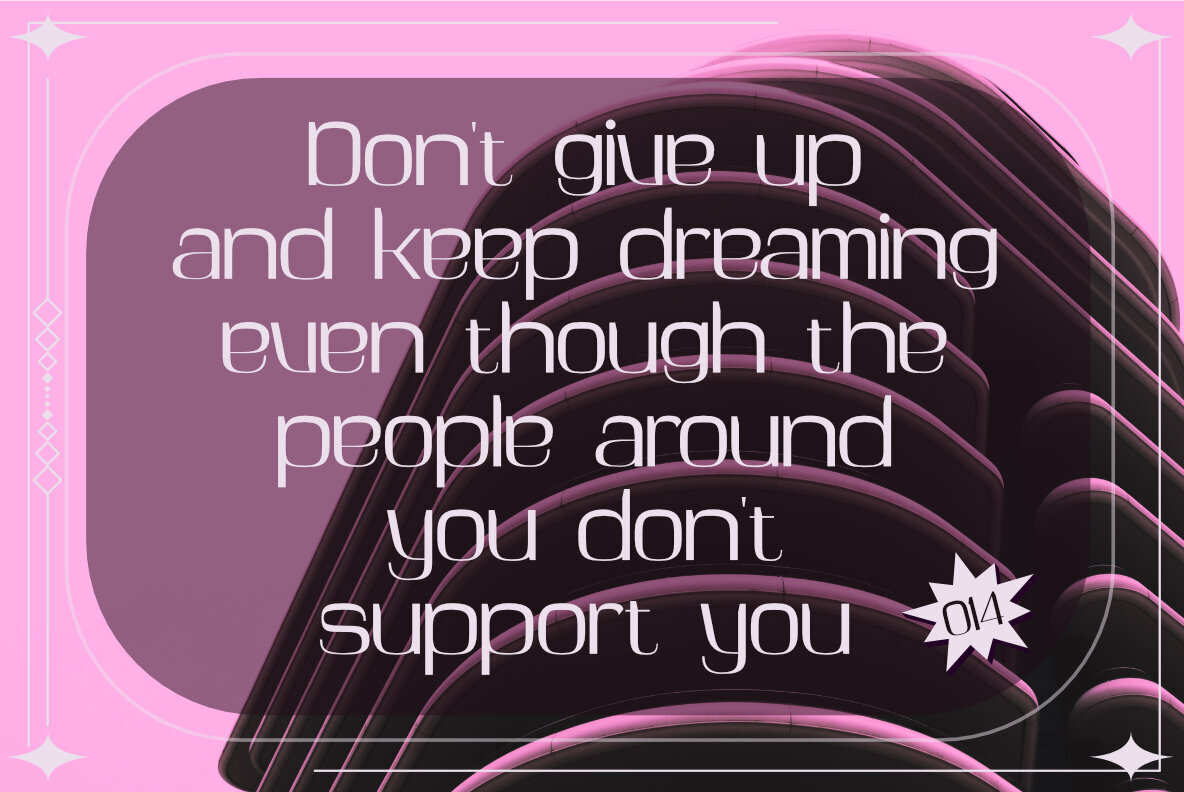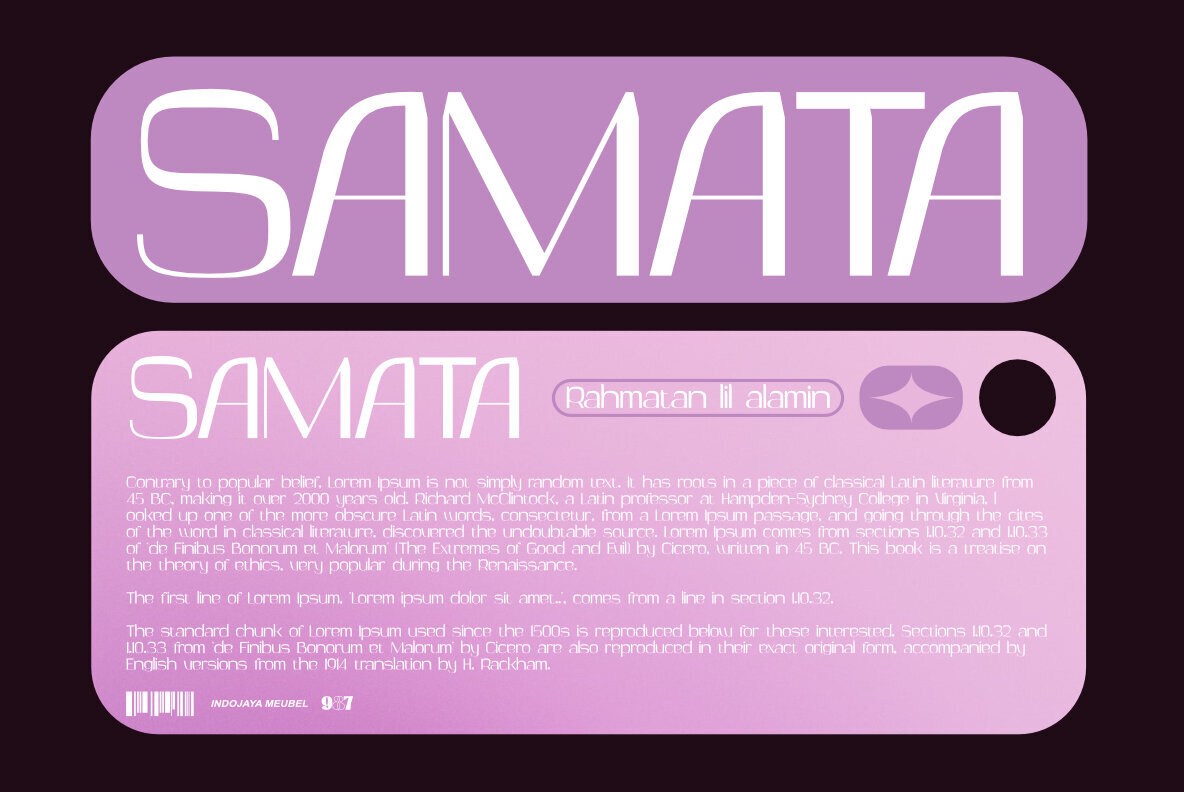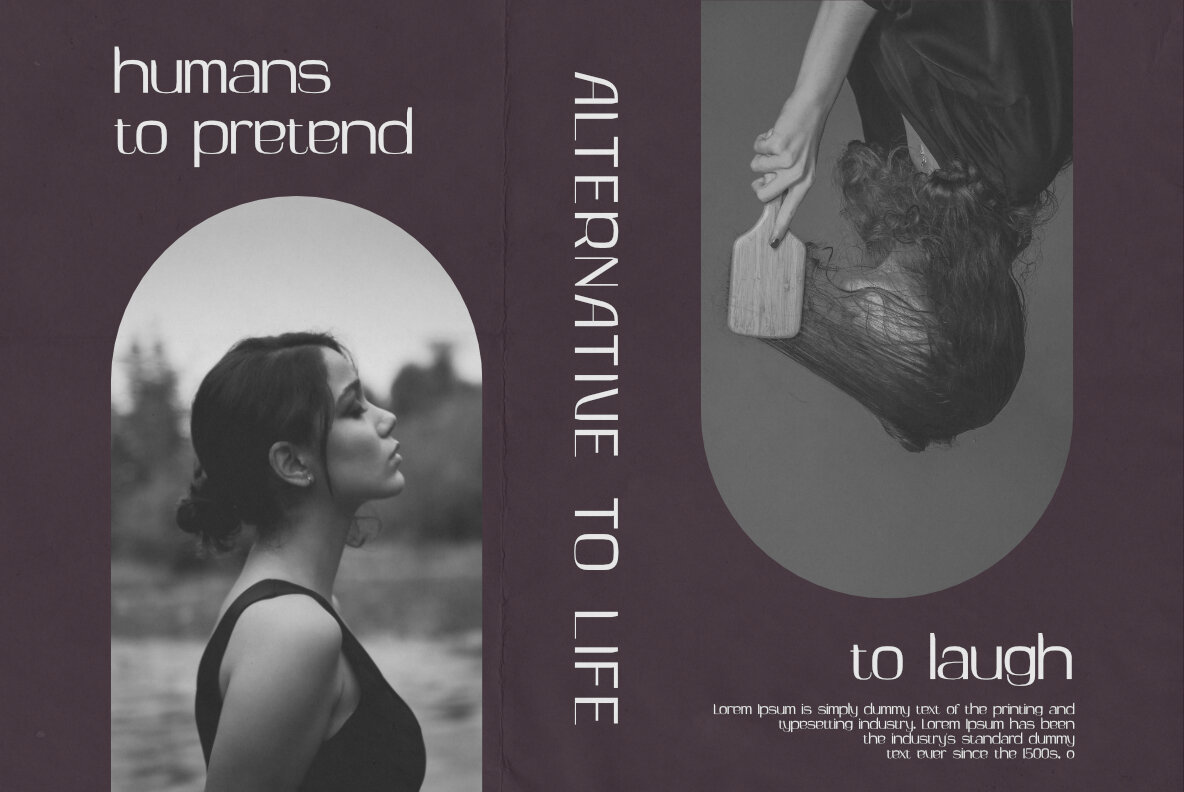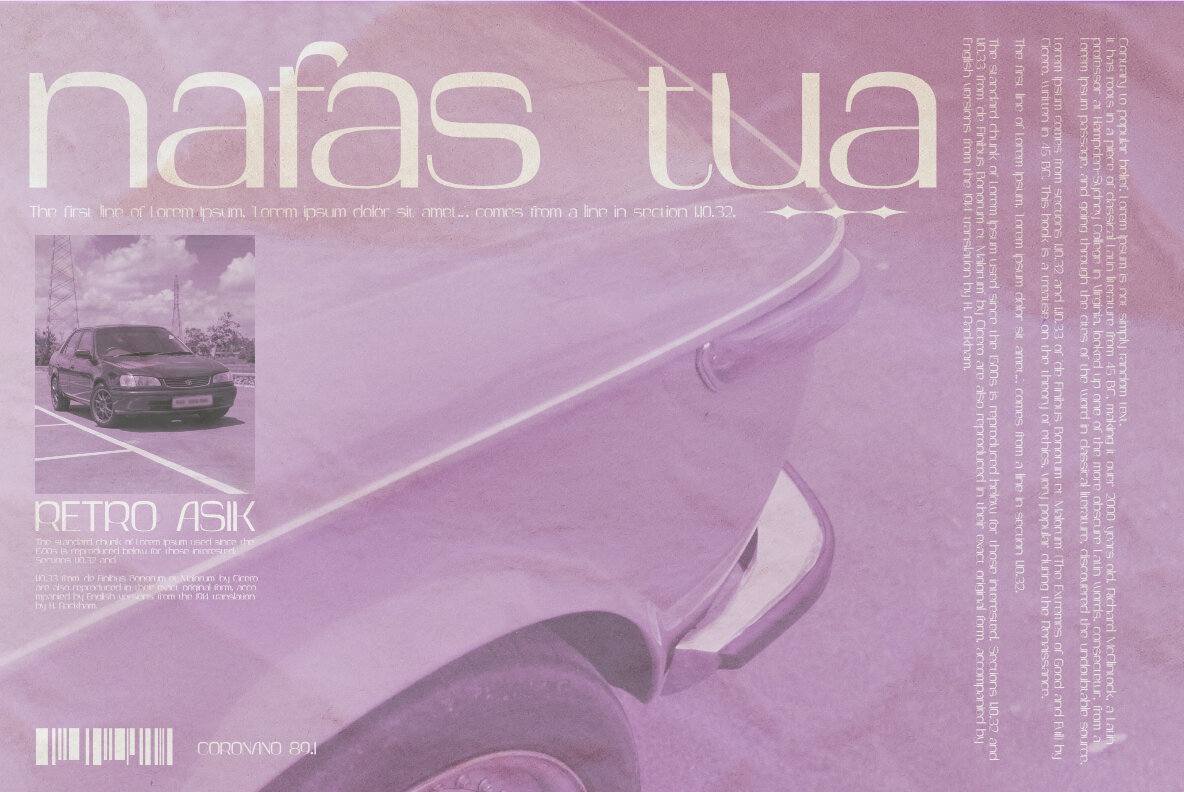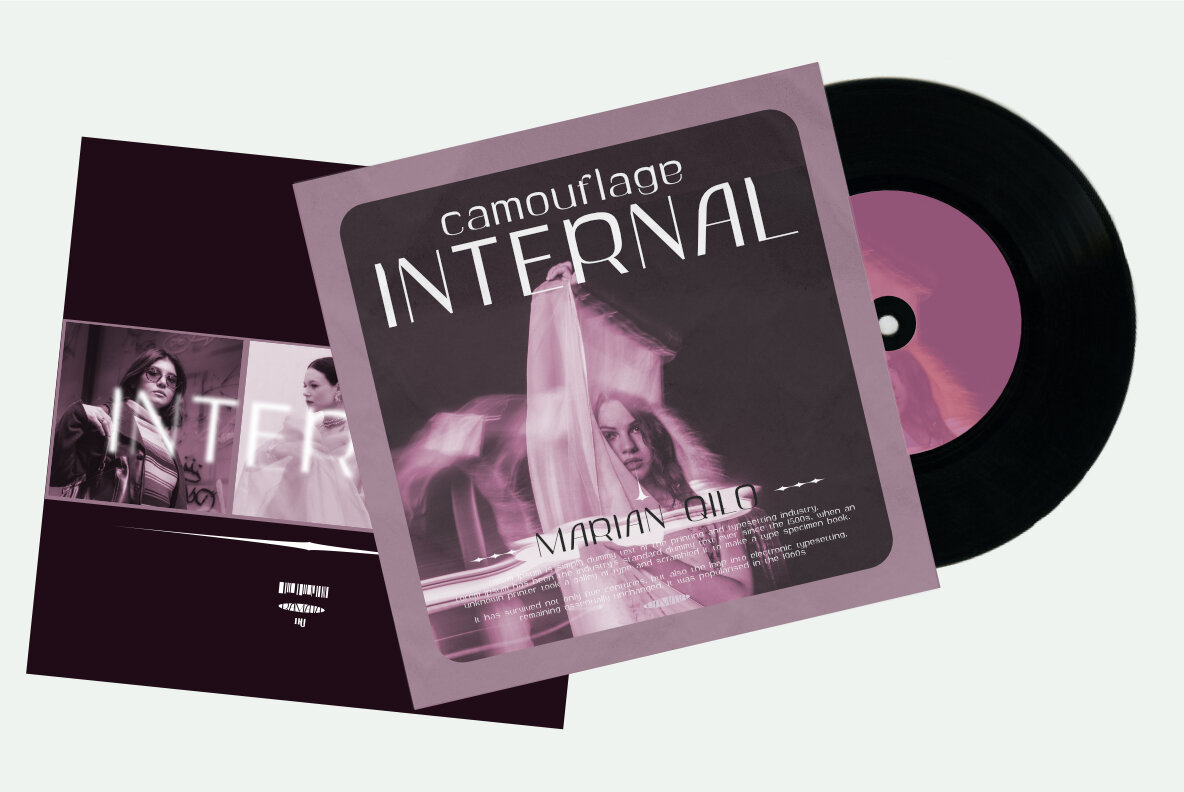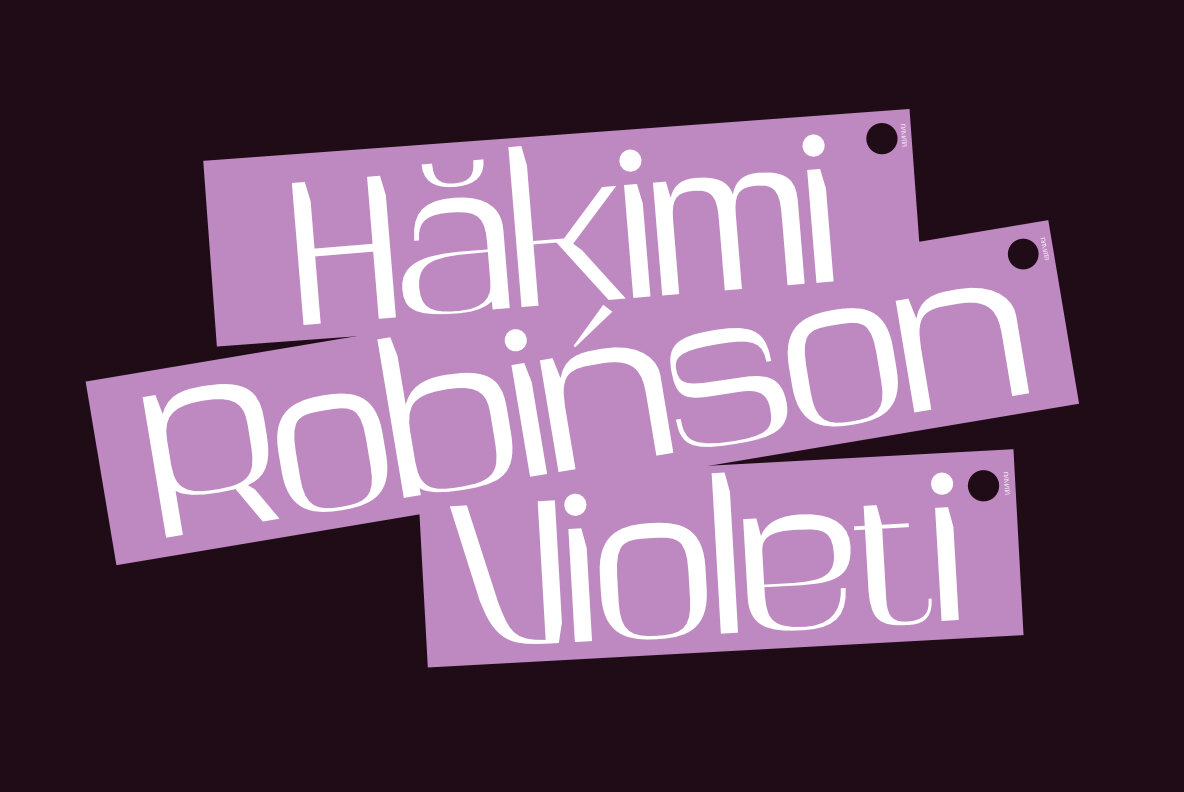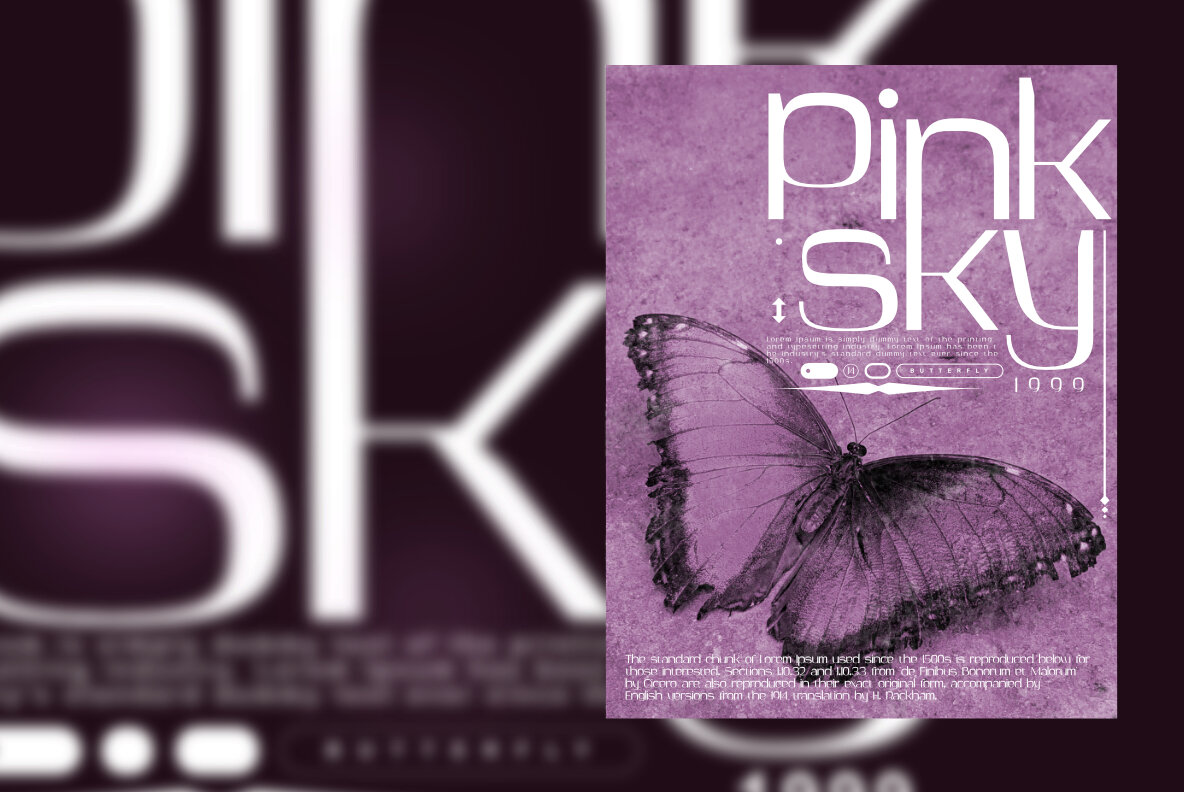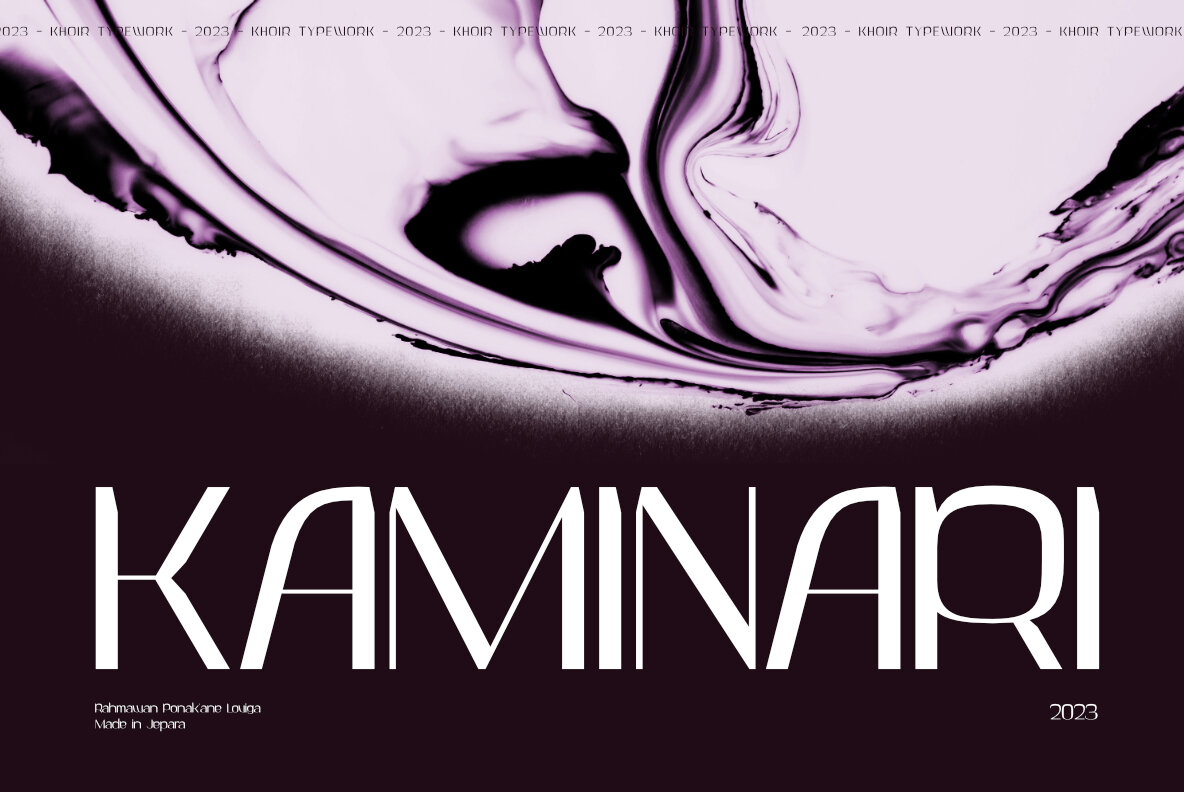
Rompink Font
Rompink Regular
Rompink by Khoir Typework blends futuristic elements with a retro style. Its distinctive design, inspired by robotics, makes it an ideal choice for both modern urban environments and today's digital industry trends.Rompink: A Retro-Futurism Inspired Font